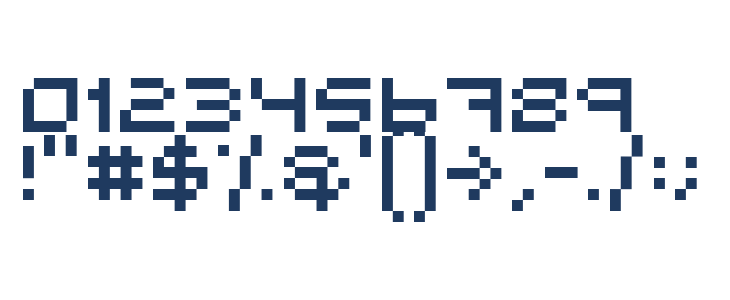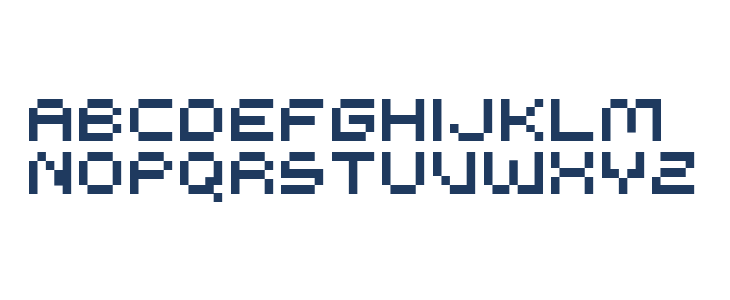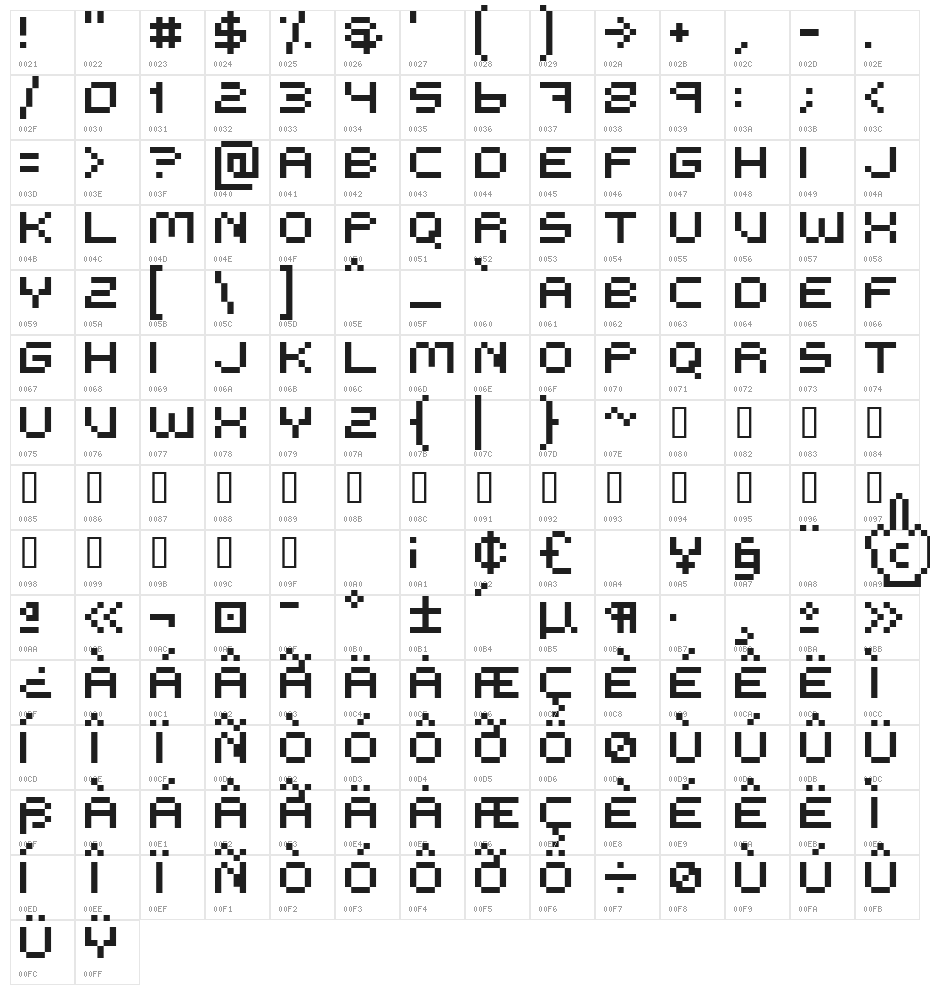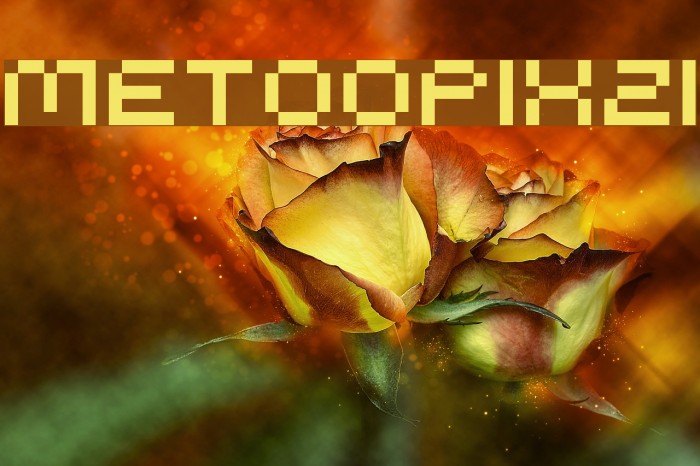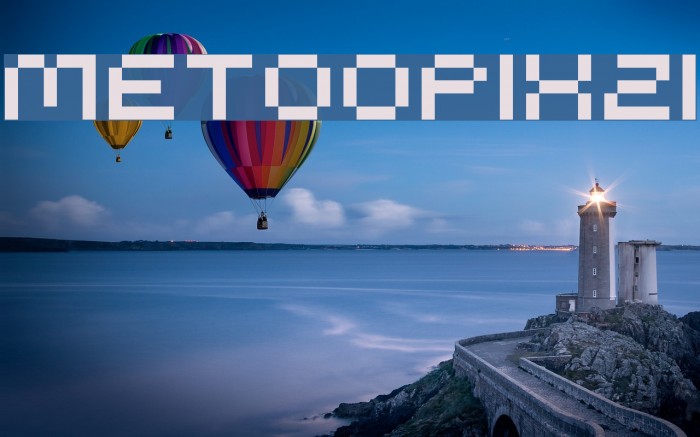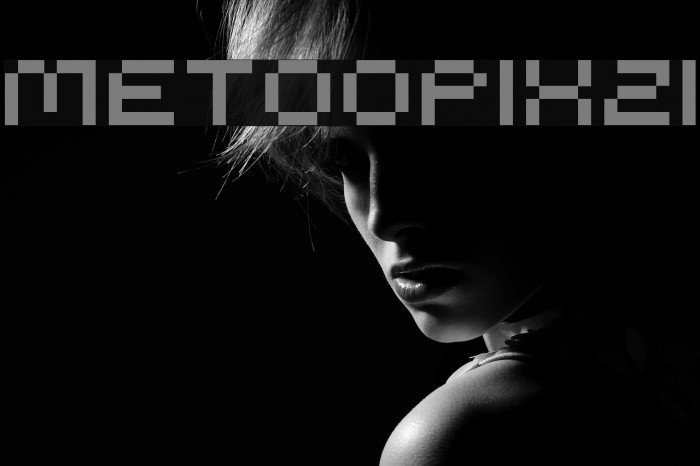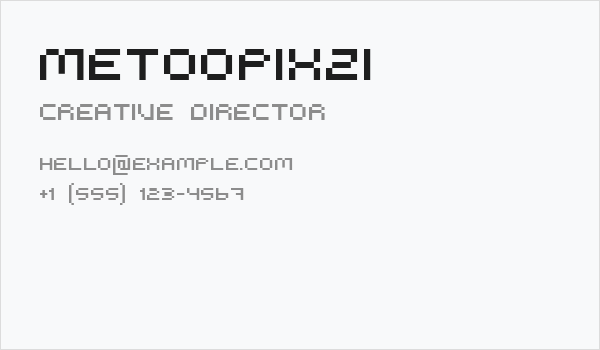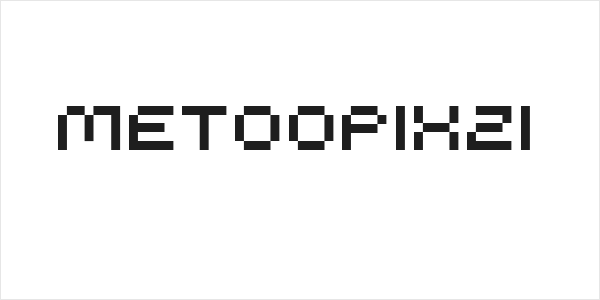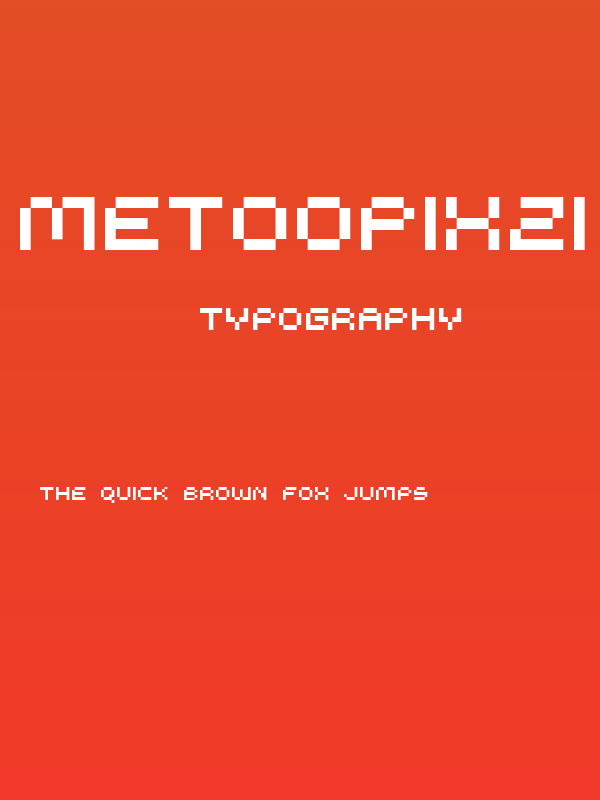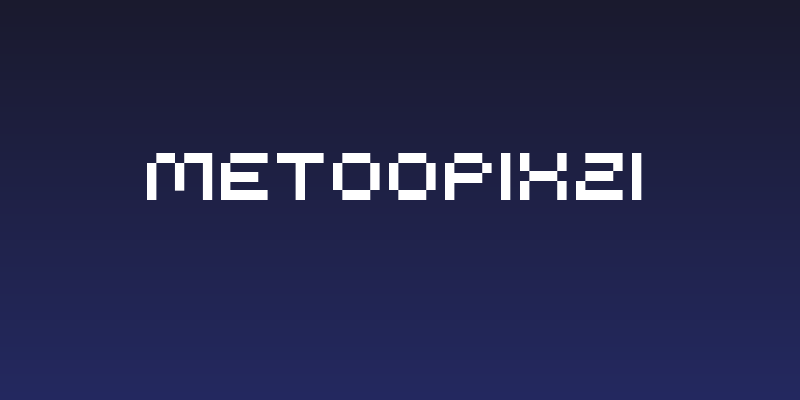
MeTooPixzi Font
MeTooPixzi Description
This font features a bold, pixelated design reminiscent of early digital displays and video games. Each character is constructed with a uniform grid-like structure, giving it a distinctly retro and technological feel. The uppercase and lowercase letters maintain a consistent height, enhancing the font's blocky appearance. Numbers and special characters follow the same pixelated style, ensuring a cohesive look across all text elements. The font's simplicity and clarity make it ideal for projects that aim to evoke nostalgia or a digital aesthetic.
| Overall Style | Retro, Digital |
| Use Case | Headlines, Logos, Digital displays |
| Proposed Projects | Ideal for video game design, digital art projects, retro-themed posters, and any creative work that requires a nostalgic or technological touch. |